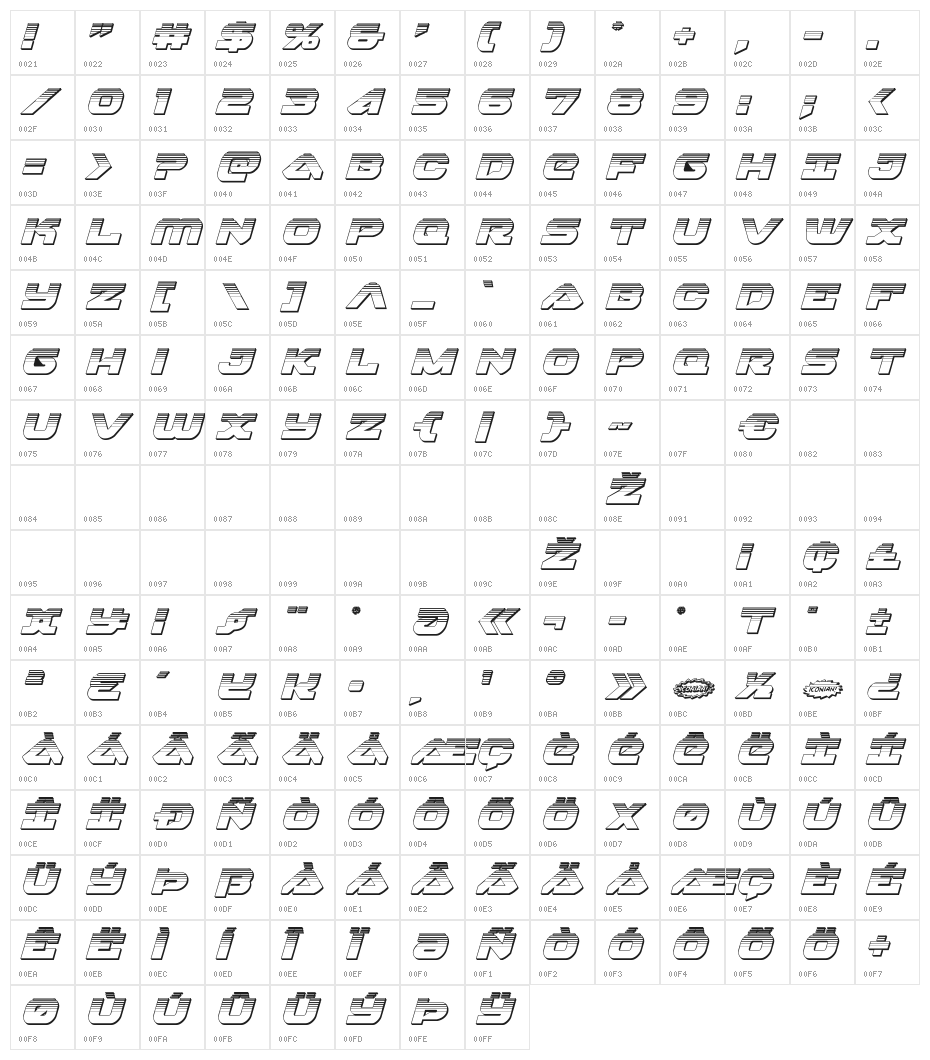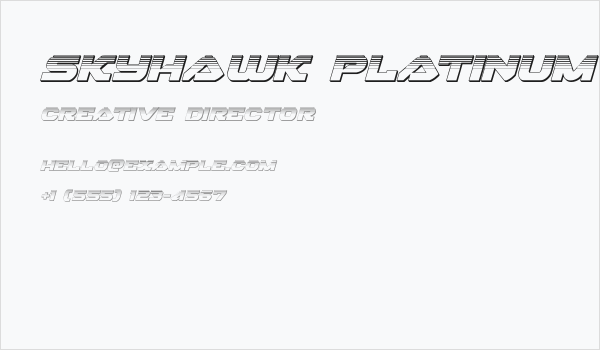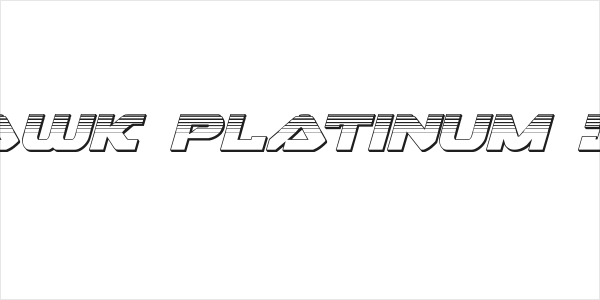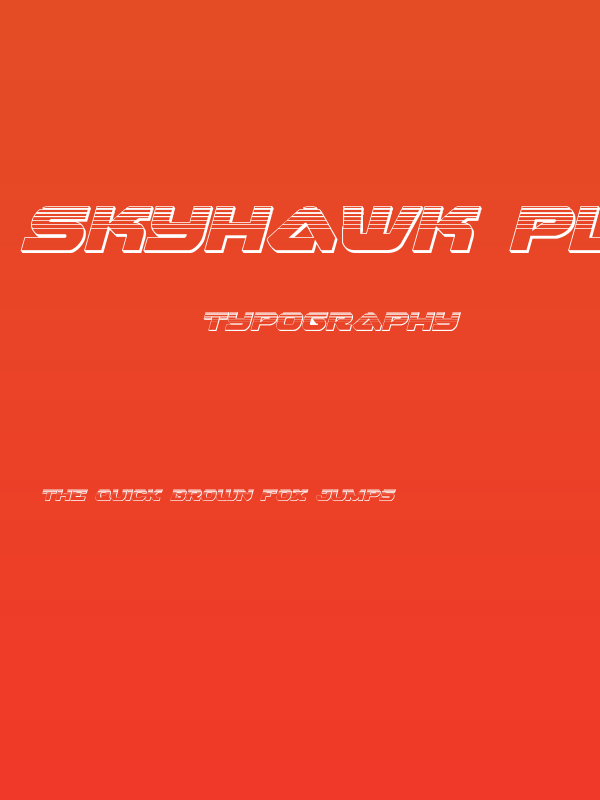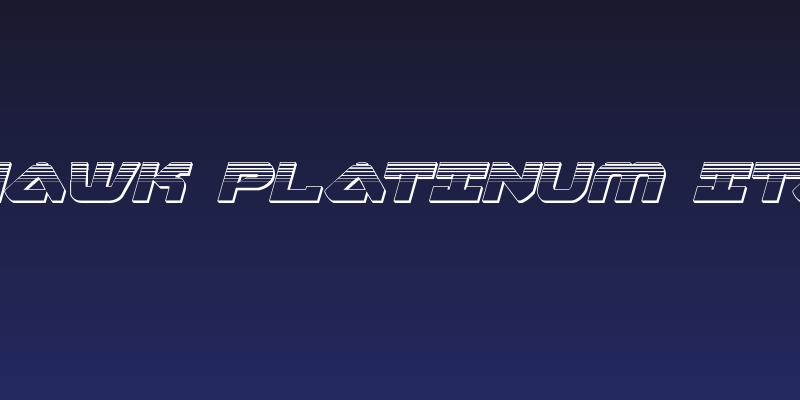
Skyhawk Platinum Italic Font
Skyhawk Platinum Italic Description
This font features a bold, futuristic design with a three-dimensional effect created by layered outlines. The characters are italicized, giving a sense of motion and speed. The geometric shapes and sharp angles contribute to a modern, tech-inspired aesthetic. The uppercase and lowercase letters maintain a consistent style, while the numerals and special characters complement the overall design. This font is highly stylized, making it suitable for attention-grabbing headlines or branding that requires a dynamic and contemporary look.
| Proposed Projects | Ideal for technology branding, sci-fi themed posters, video game titles, and modern advertising campaigns. |